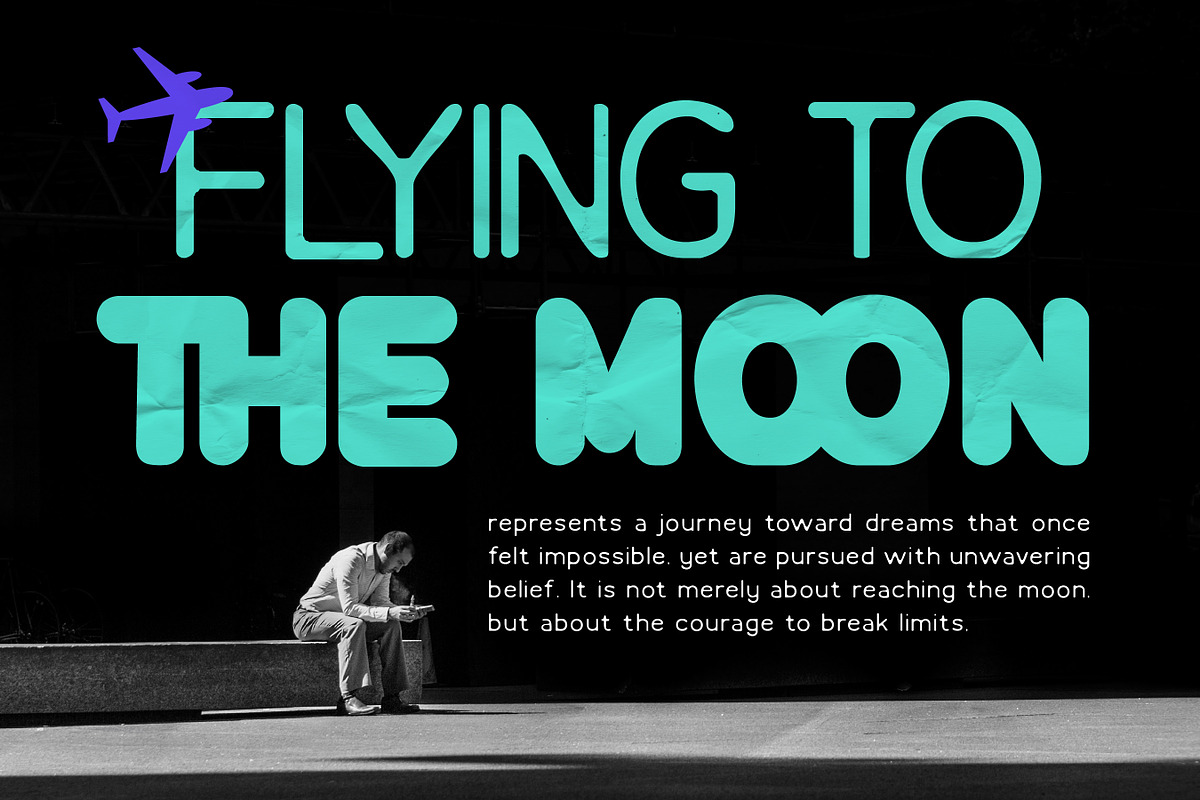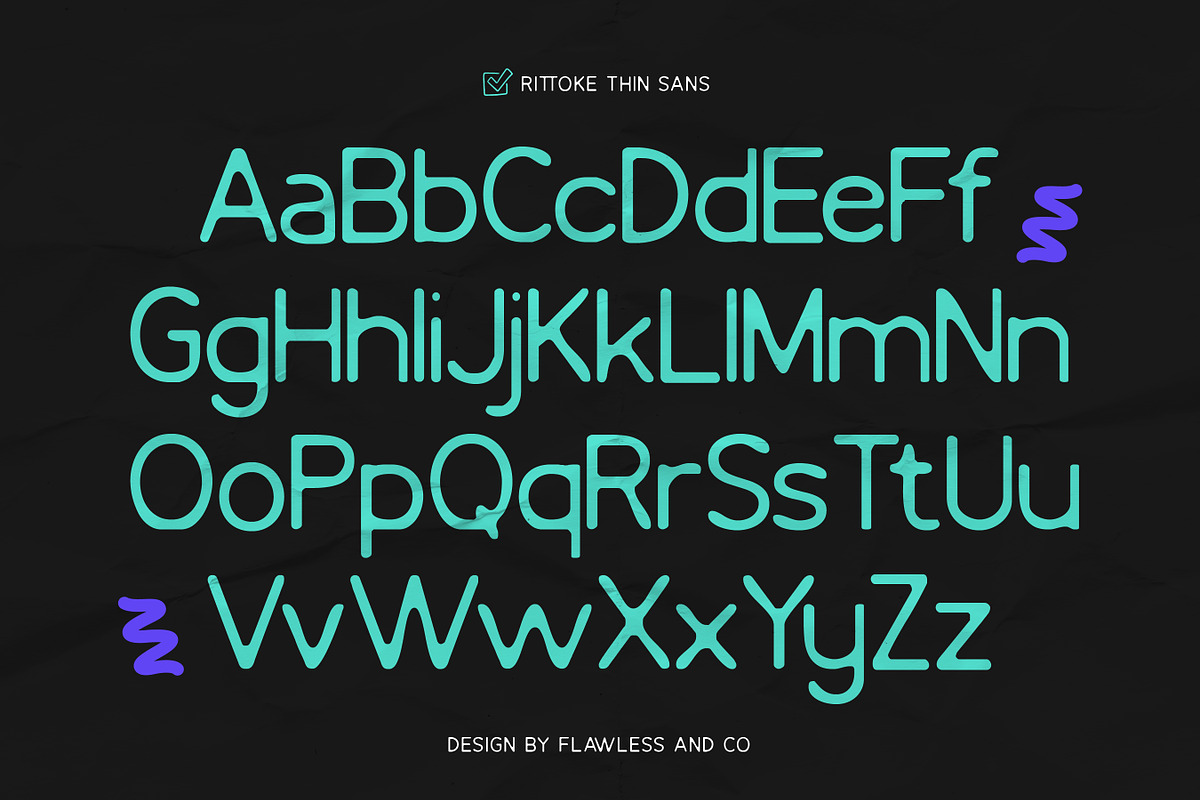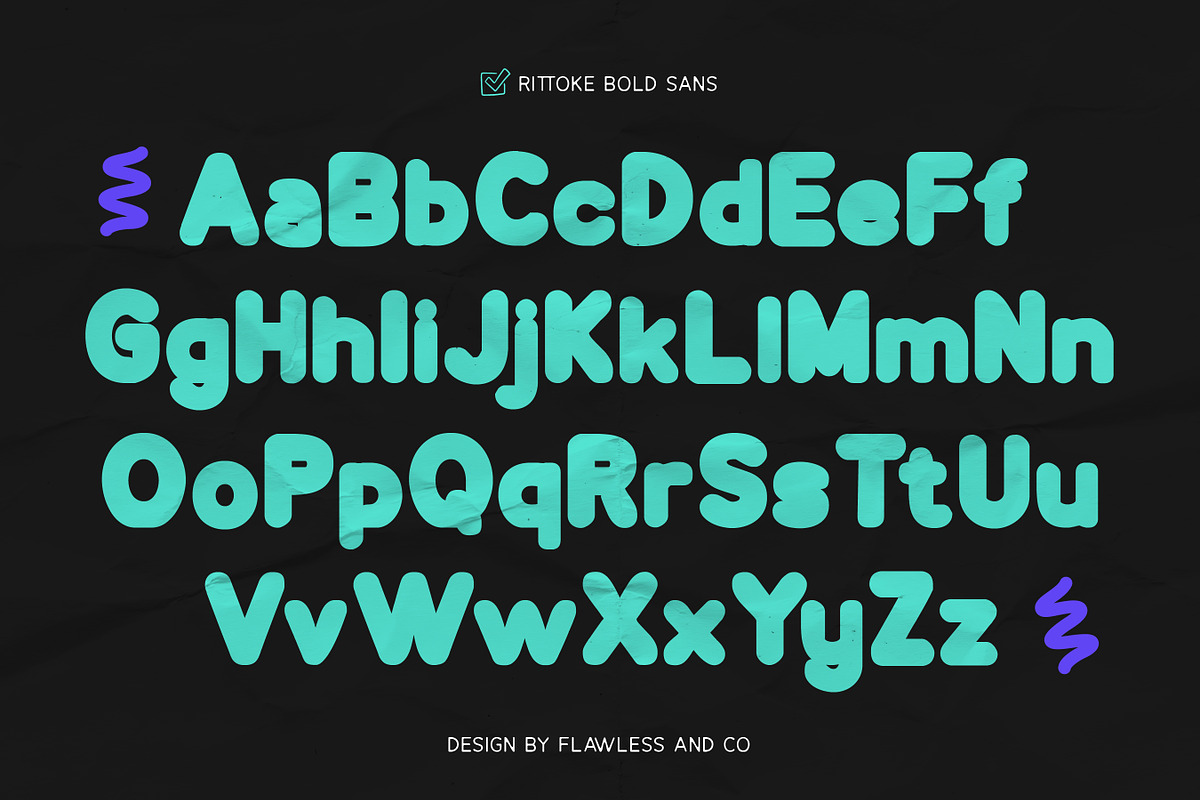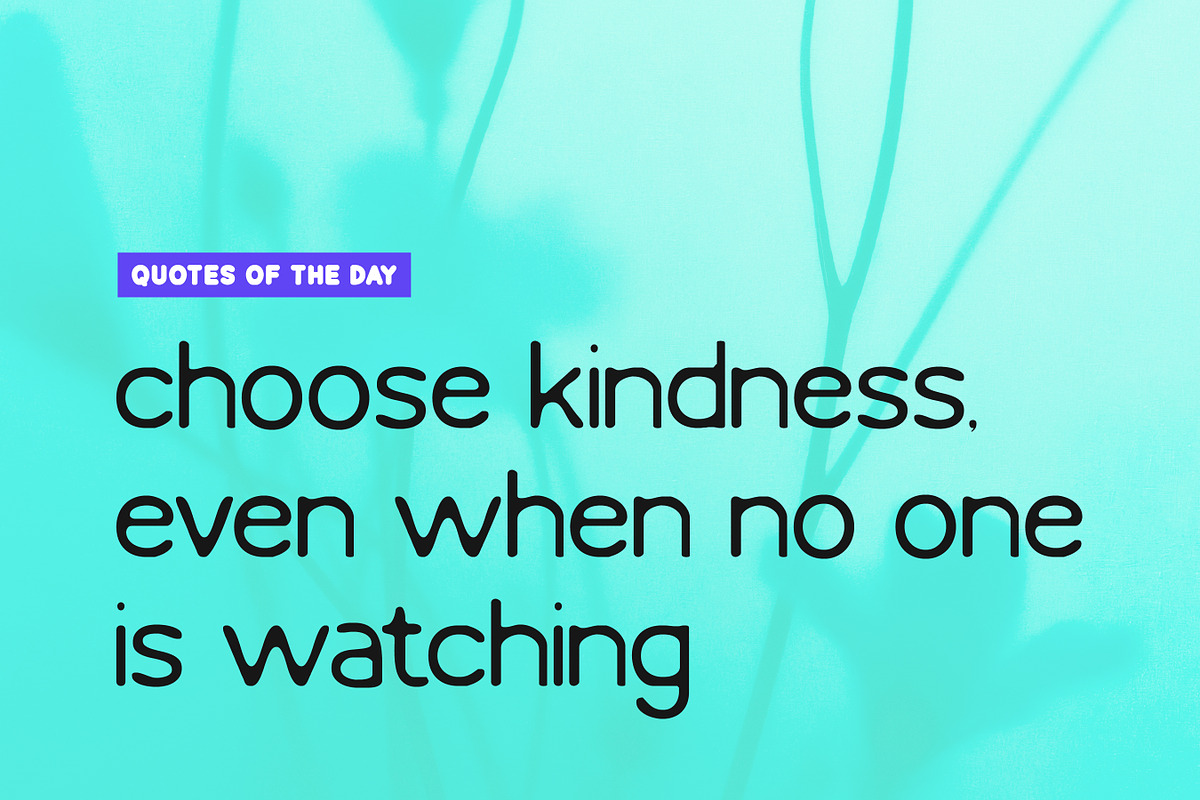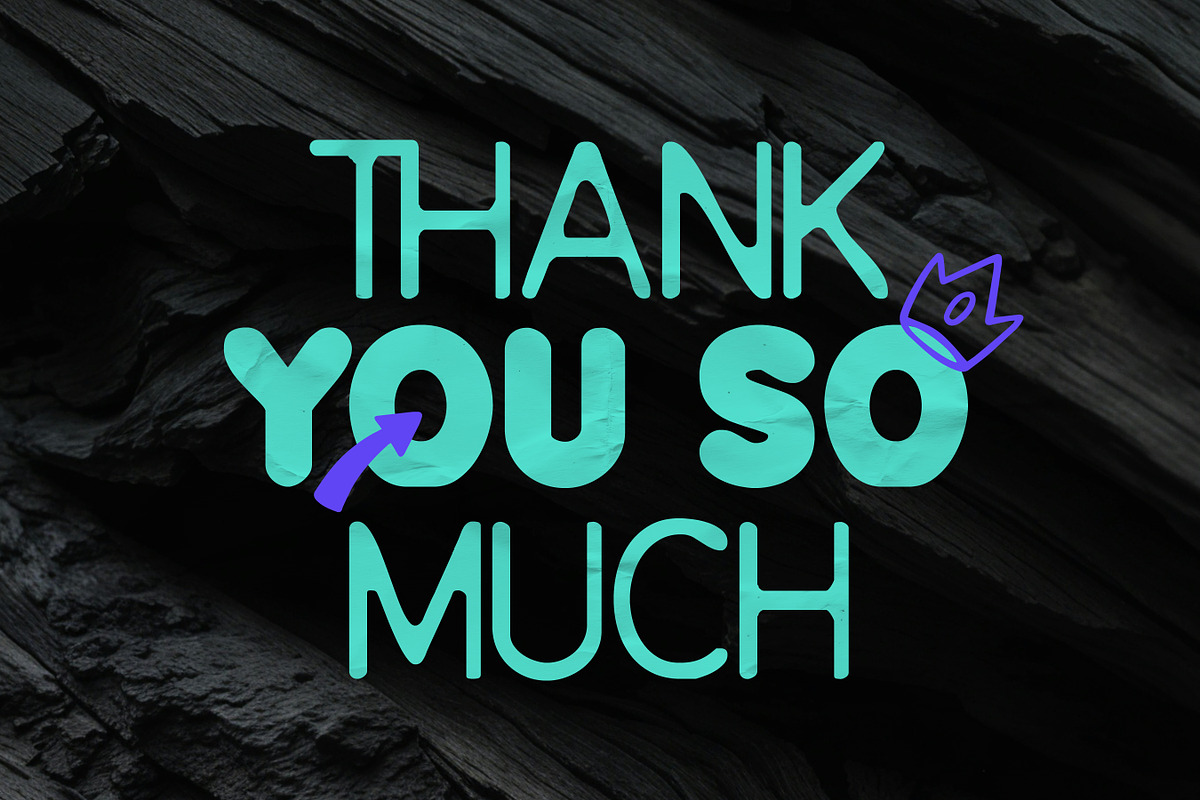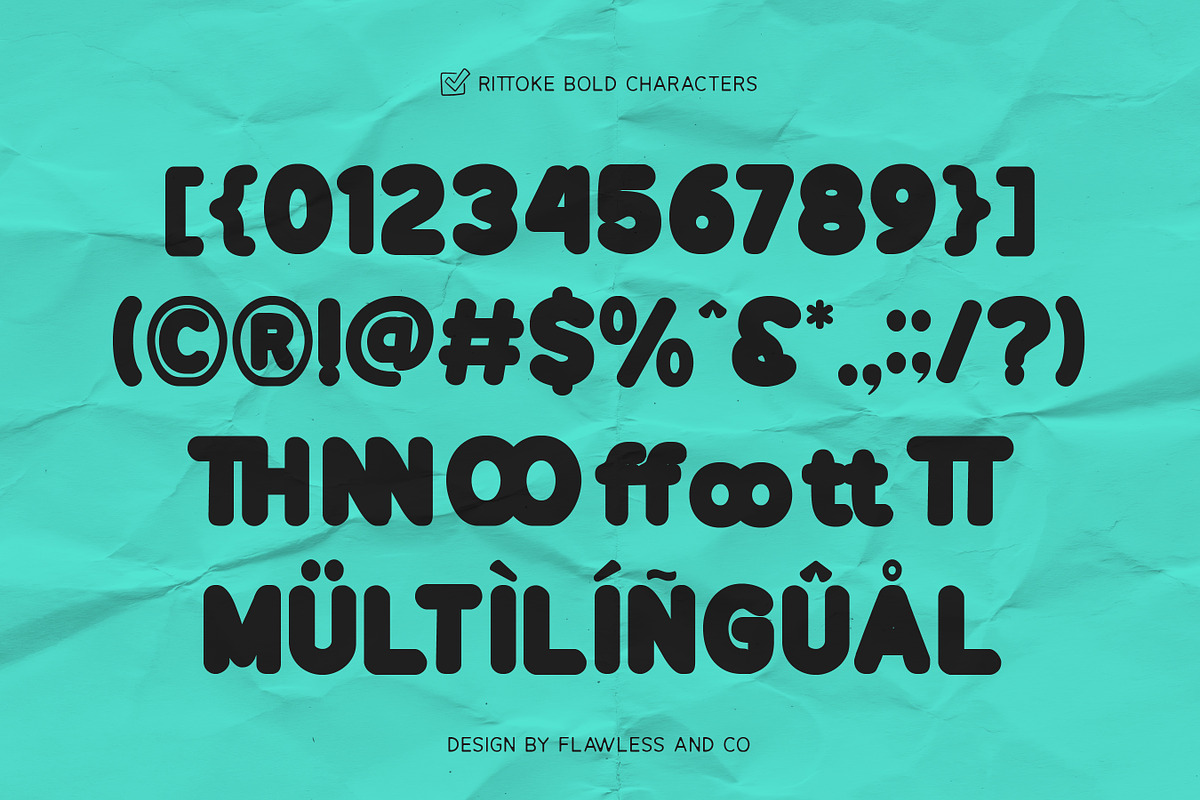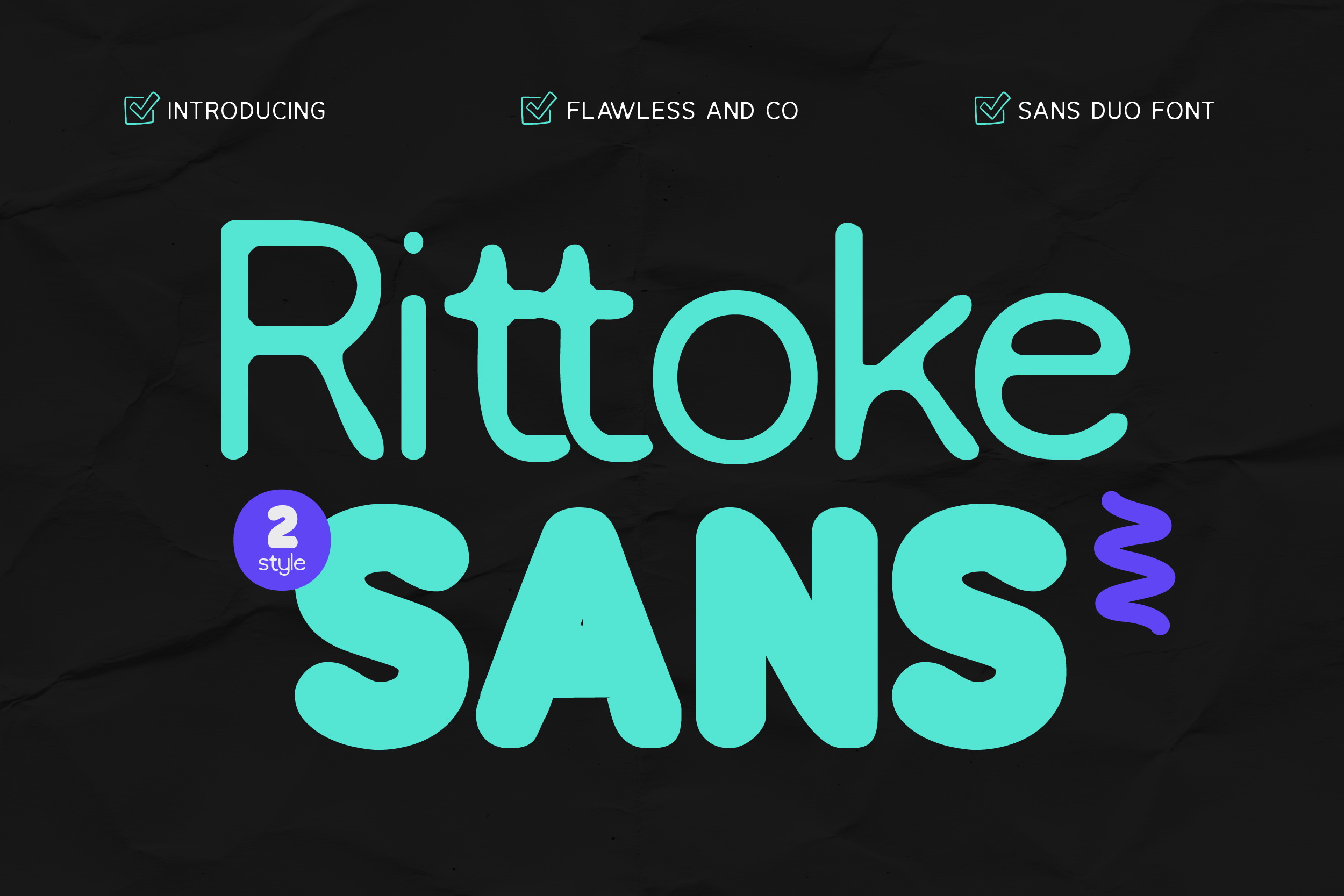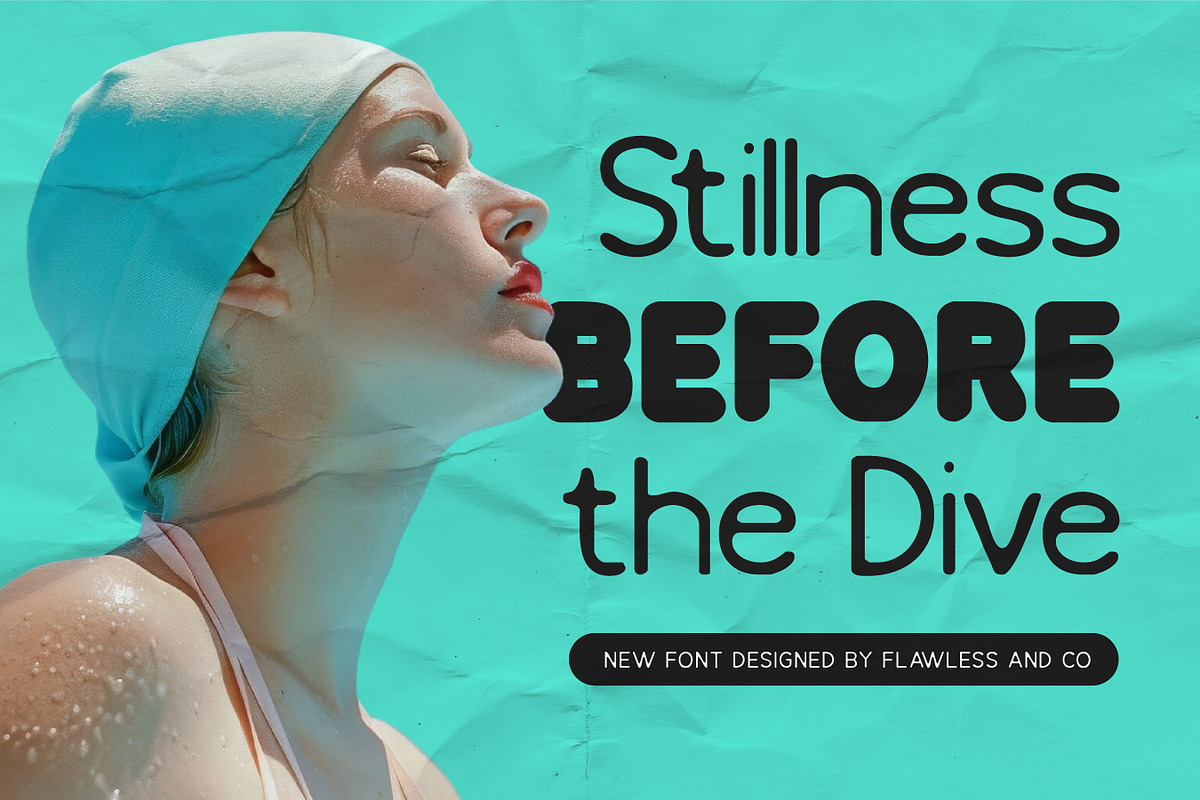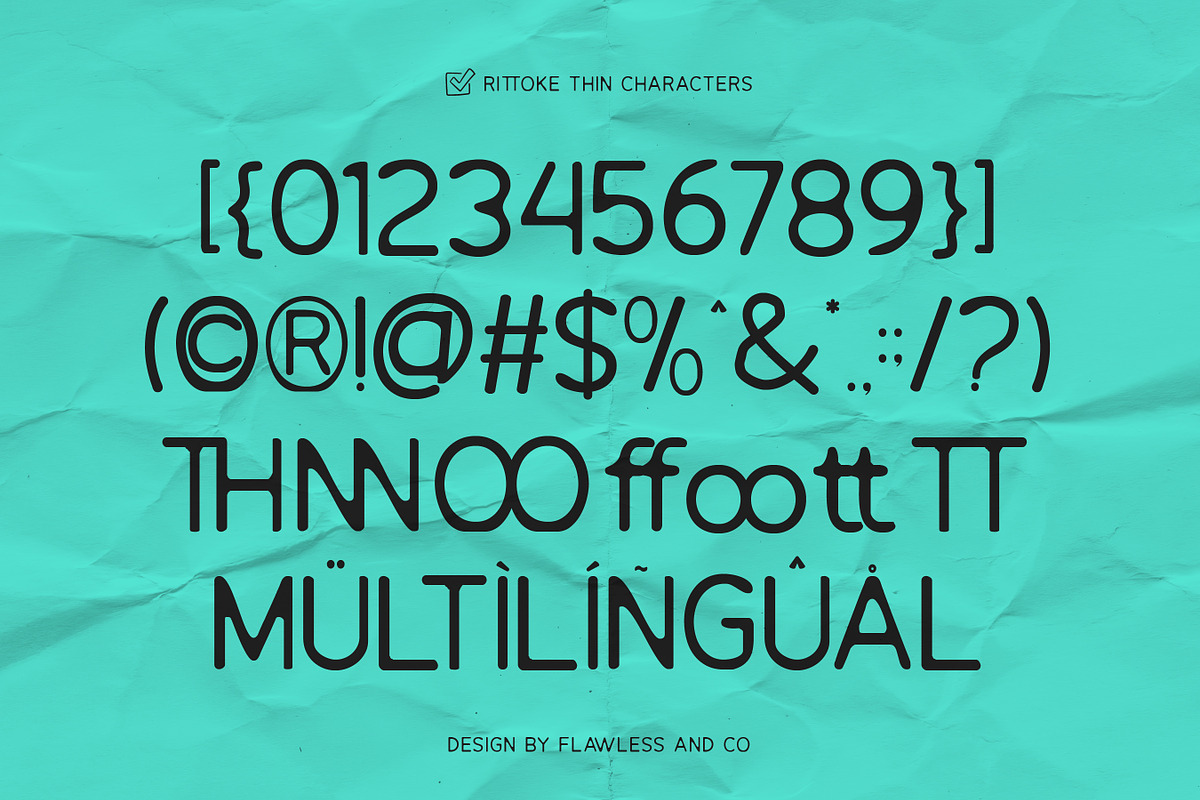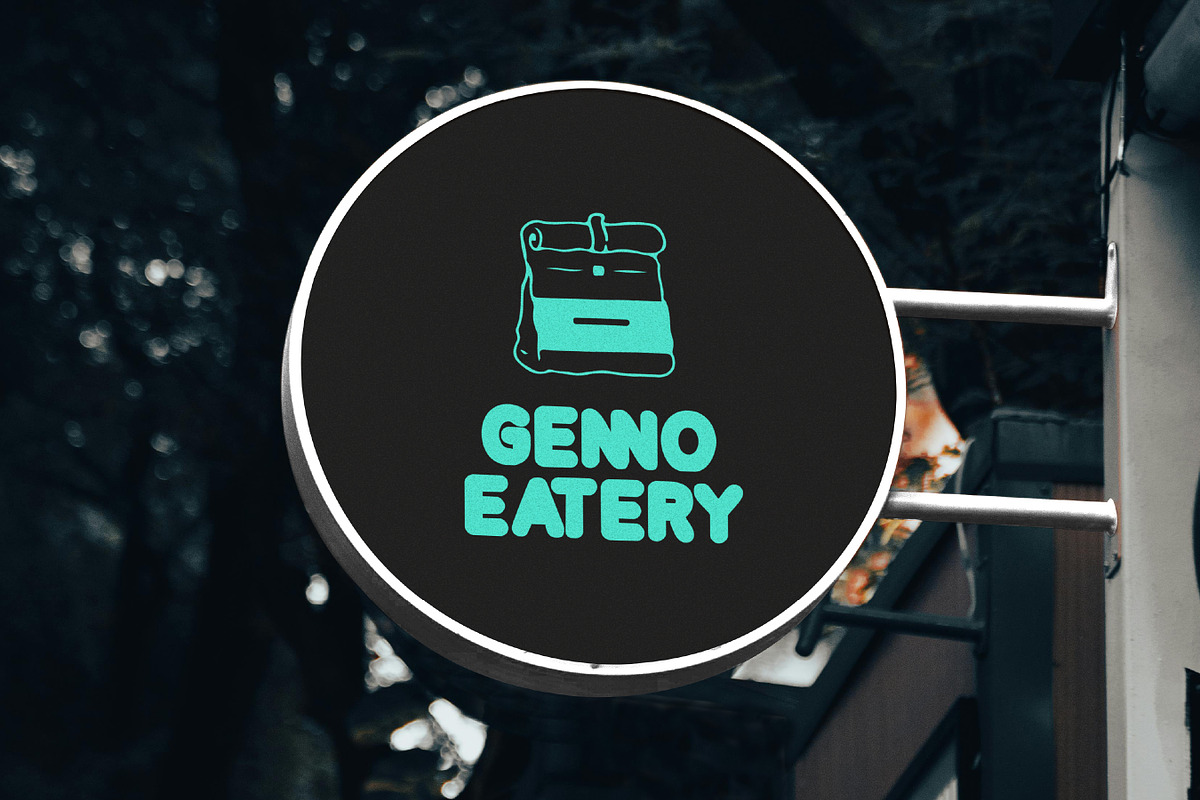
Rittoke - Sans Serif Duo Font
Rittoke is a modern sans serif duo typeface featuring a perfect combination of thin and bold styles, designed to create strong contrast and visual hierarchy. The thin version offers a clean, elegant, and minimalist feel, while the bold style brings strength, clarity, and impact. Together, they work seamlessly to produce balanced and eye-catching compositions. With its contemporary design and versatile pairing, Rittoke makes it easy to craft typography that feels both dynamic and cohesive.
Who Should Use Rittoke?
Rittoke is ideal for designers and creatives who want a flexible font pairing that naturally builds contrast and emphasis. It’s especially suited for projects that benefit from combining delicate and strong typographic styles in one unified system.
Suitable For:
Branding and logo design
Editorial and magazine layouts
Modern business identity
Social media visuals
Packaging and product design
Website and UI design
Marketing and promotional materials
Creative typography compositions